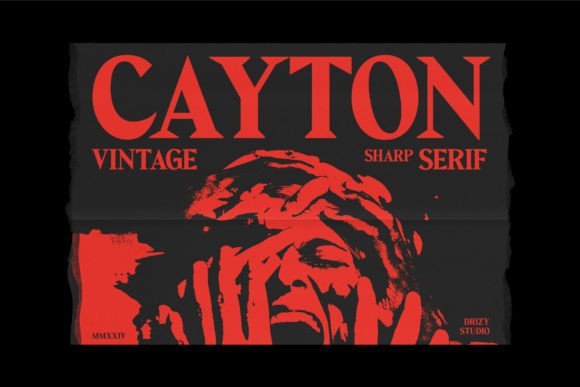
The Perfect Font for Your Next Noir-Inspired Project
You know that feeling when you’re brainstorming a new design concept, and suddenly, the perfect font pops into your mind? It’s like the puzzle pieces finally fall into place, and you can envision the entire project unfolding before your eyes. For many designers, that moment often comes when they stumble upon a font that perfectly captures the essence of their idea.
That’s exactly what the Cayton Font does – it embodies the mystique and intrigue of a bygone era, transporting your designs into the realm of vintage detective stories and thrilling mysteries. This Noir Crime Serif font is designed to evoke a sense of sophistication and suspense, making it the ideal typeface for projects that demand a touch of elegance.
With its sharp serifs and distinctive letterforms, the Cayton Font is a valuable addition to any designer’s toolkit, offering a unique and captivating visual identity for your next project.
Cayton Font Key Features
- Unique Characteristics: Cayton Font features a unique blend of modern and classic design elements, with subtle flair and sophistication.
- Font Weight: The font offers a range of weights, from Light to Extra Bold, allowing for flexibility in design applications.
Cayton Font Review
As a designer, I was excited to dive into the Cayton font and see what it had to offer. Overall, I was pleasantly surprised by its unique charm and versatility. Here are some of the things that stood out to me:
- ✨ The Cayton font has a beautiful, modern aesthetic that would be perfect for a variety of projects, from logos to branding materials.
- ✨ The font’s subtle nuances and quirks give it a lot of character, making it stand out from more generic font options.
- ✨ The Cayton font is highly customizable, with a wide range of weights and styles to choose from.
Of course, no font is perfect, and the Cayton font has some limitations that are worth noting:
- ⚠️ The font may be a bit too ornate for some projects, particularly those that require a more straightforward or minimalist approach.
- ⚠️ The Cayton font may not be the best choice for small text sizes, as its intricate details can get lost at smaller scales.
- ⚠️ Some users may find the font’s quirks and nuances to be distracting or difficult to read.
Overall, I think the Cayton font is a great addition to any designer’s toolkit. While it may not be the best choice for every project, it’s definitely worth considering for those that require a unique and eye-catching look.
Cayton Font is a versatile font that can be used for a variety of purposes, including:
- Body text
- Editorial and publishing
To get the most out of Cayton Font, experiment with different font sizes, colors, and styles to create a unique and eye-catching design.
Alternatives to Cayton Font
Montserrat is a sans-serif font designed by Julieta Ulanovsky. It is a modern and clean font that is perfect for digital products, websites, and applications. Montserrat is a great alternative to Cayton Font as it has a similar geometric feel but with a more modern and edgy look. Use Montserrat when you need a font that is easy to read and works well in small sizes.
Comparison to Cayton Font: Montserrat is more geometric and modern, whereas Cayton Font has a more rounded and friendly feel.
Lato is a sans-serif font designed by Łukasz Dziedzic. It is a clean and elegant font that is perfect for corporate branding, websites, and print materials. Lato is a great alternative to Cayton Font as it has a similar friendly and approachable feel but with a more refined and sophisticated look. Use Lato when you need a font that is easy to read and works well in both digital and print formats.